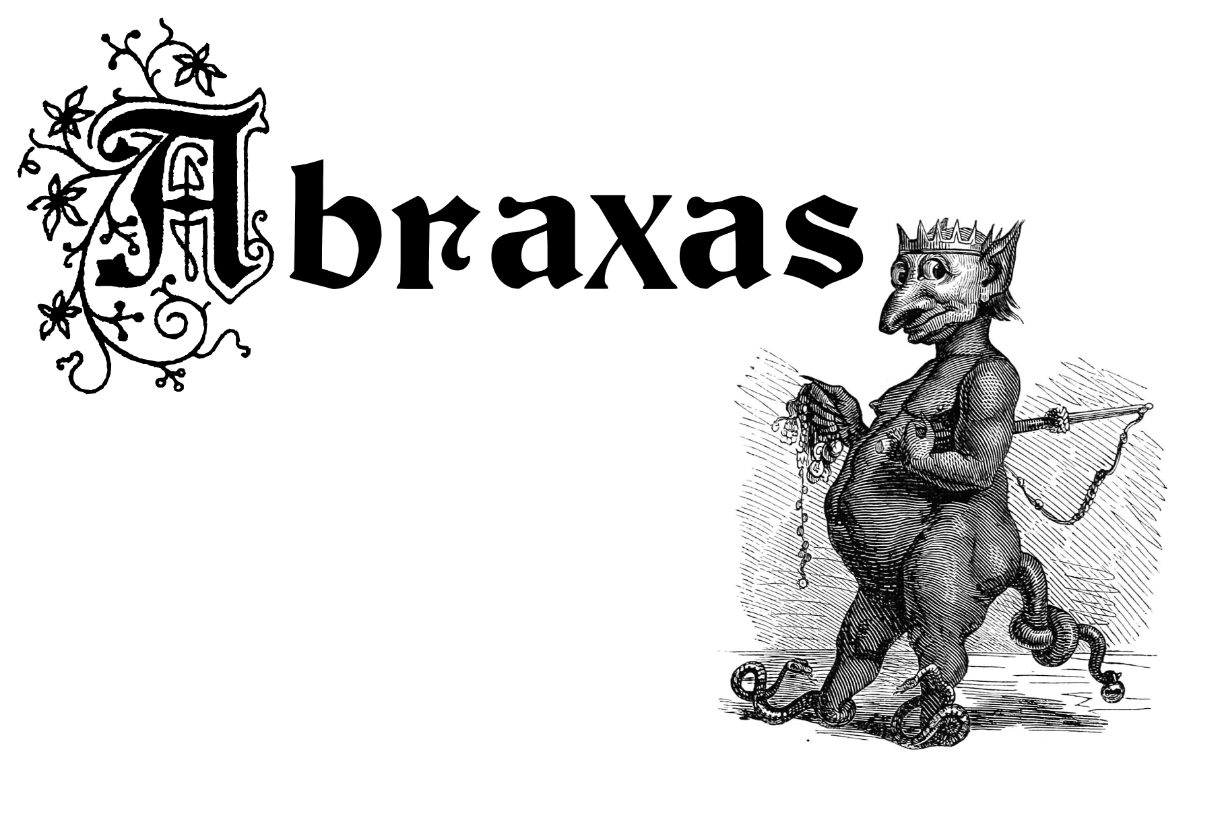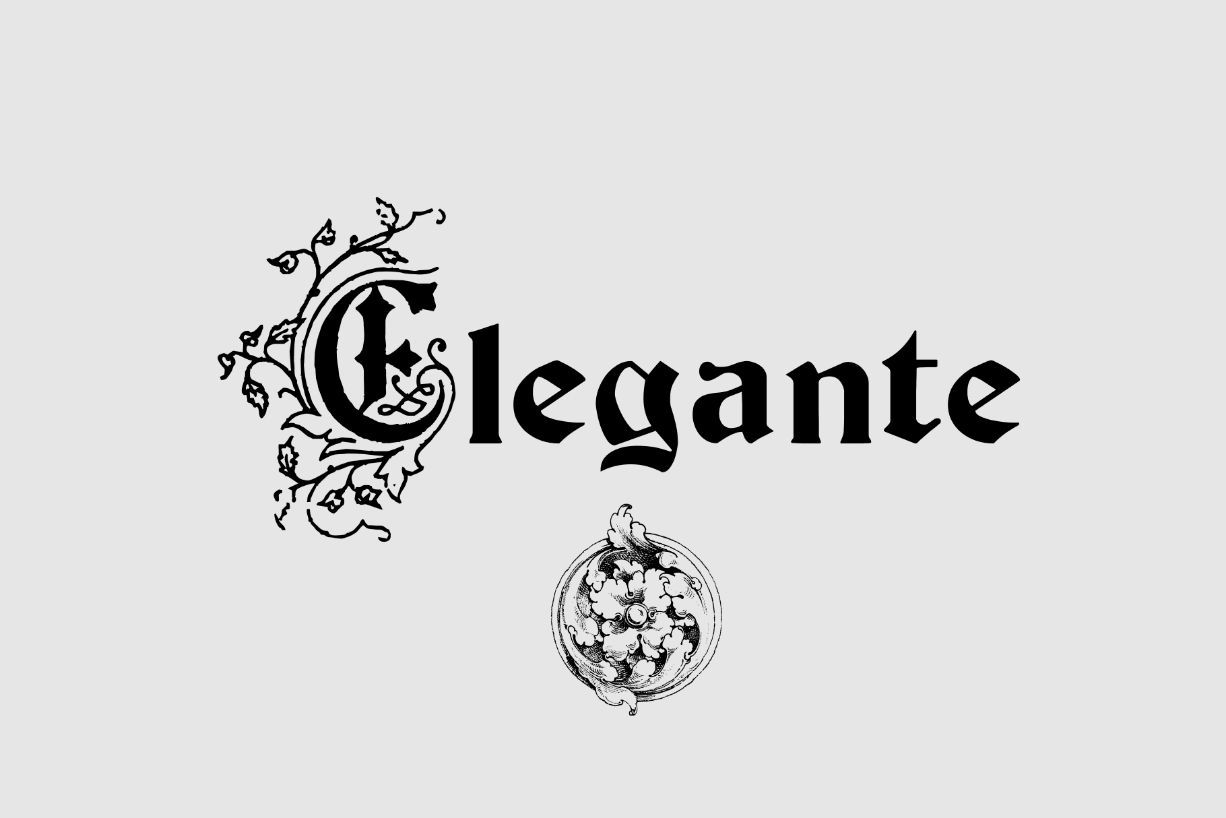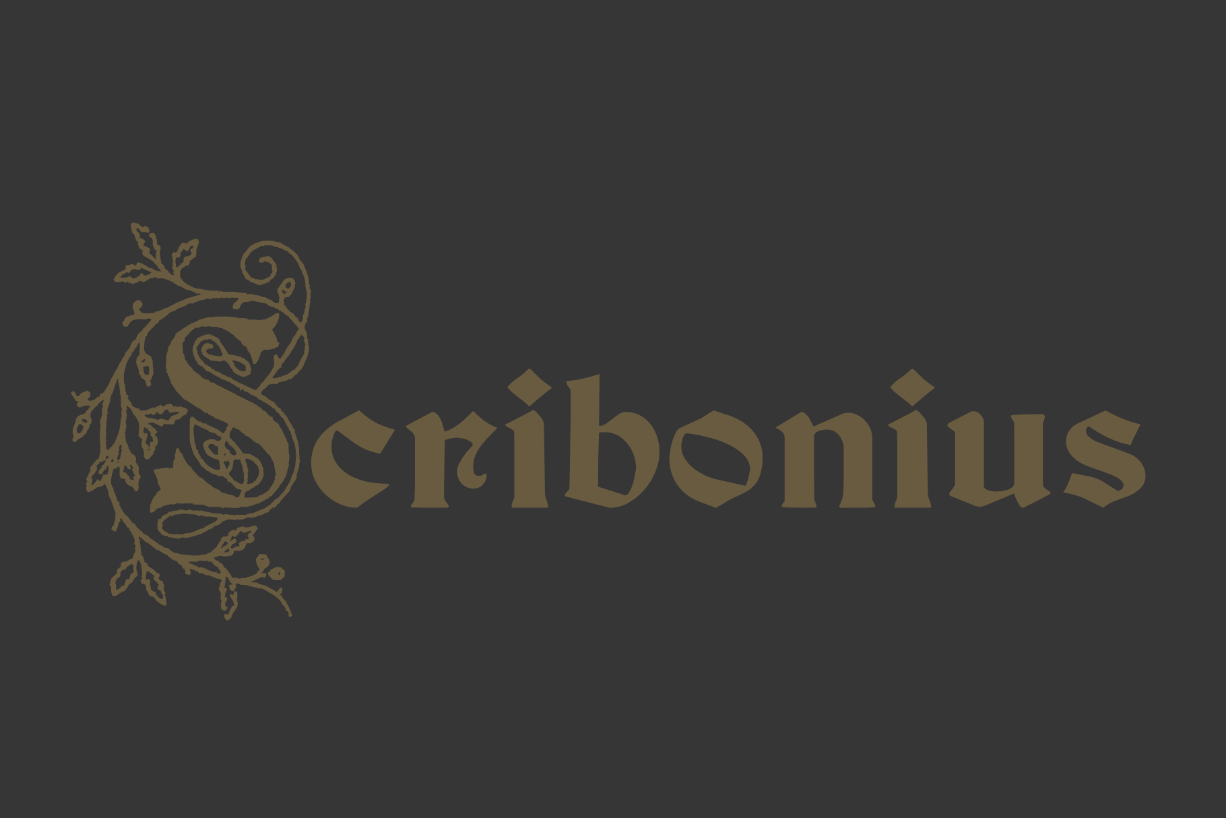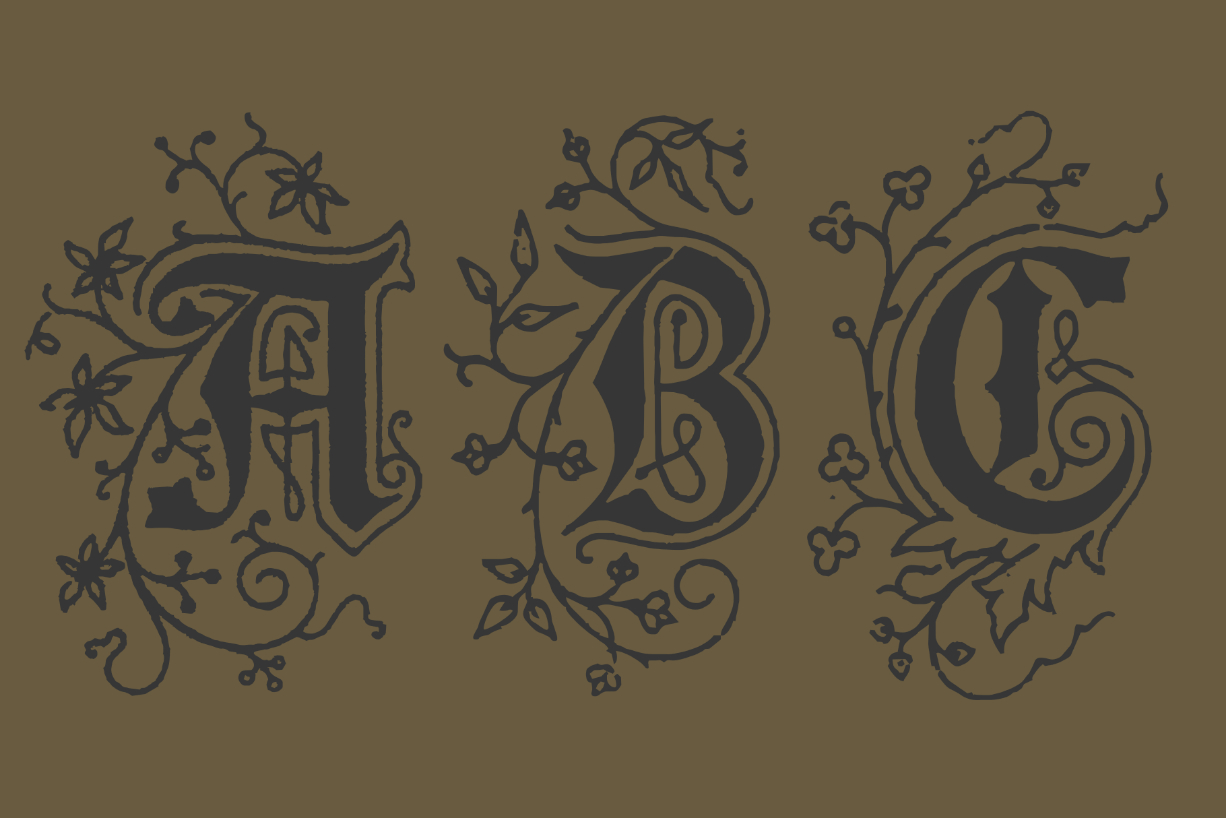
Scribonius Gtslb Font
About Scribonius Gtslb Font
Scribonius Gtslb is an elegant and clean blackletter font with ornamented initials. It is suitable for any bold branding, product packaging, invitation, quote, t-shirt, label, poster, logo that you wish to develop